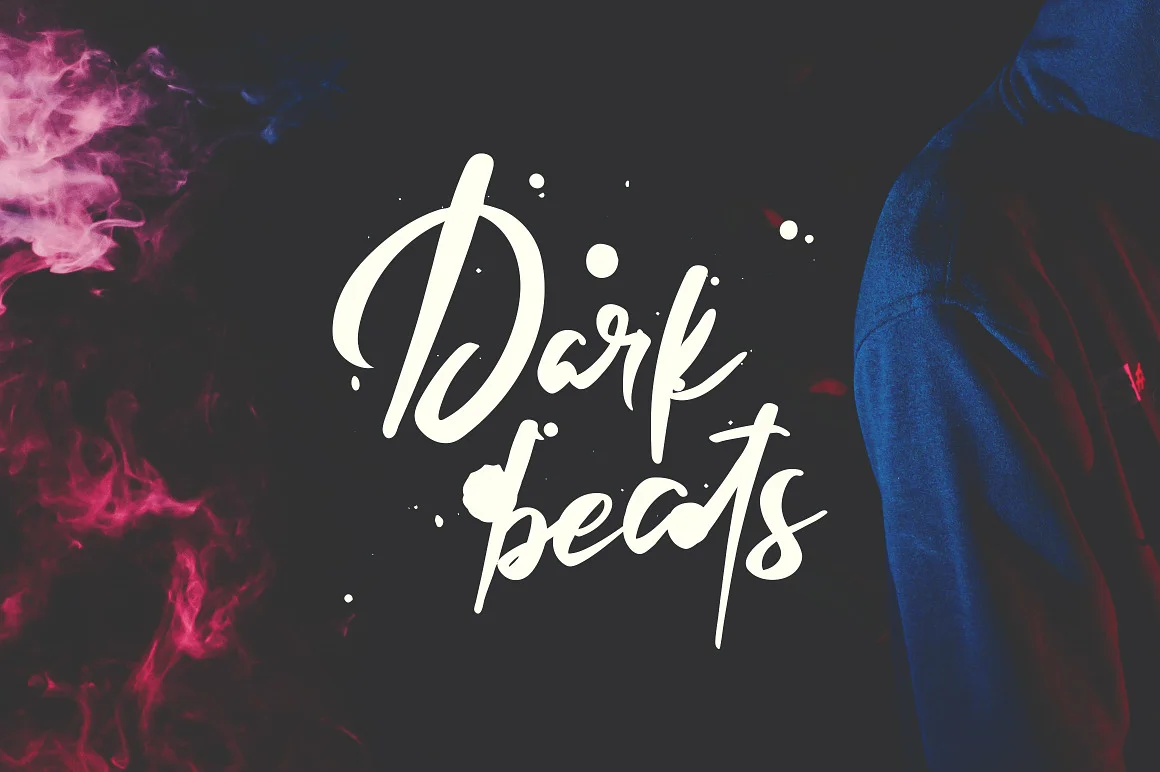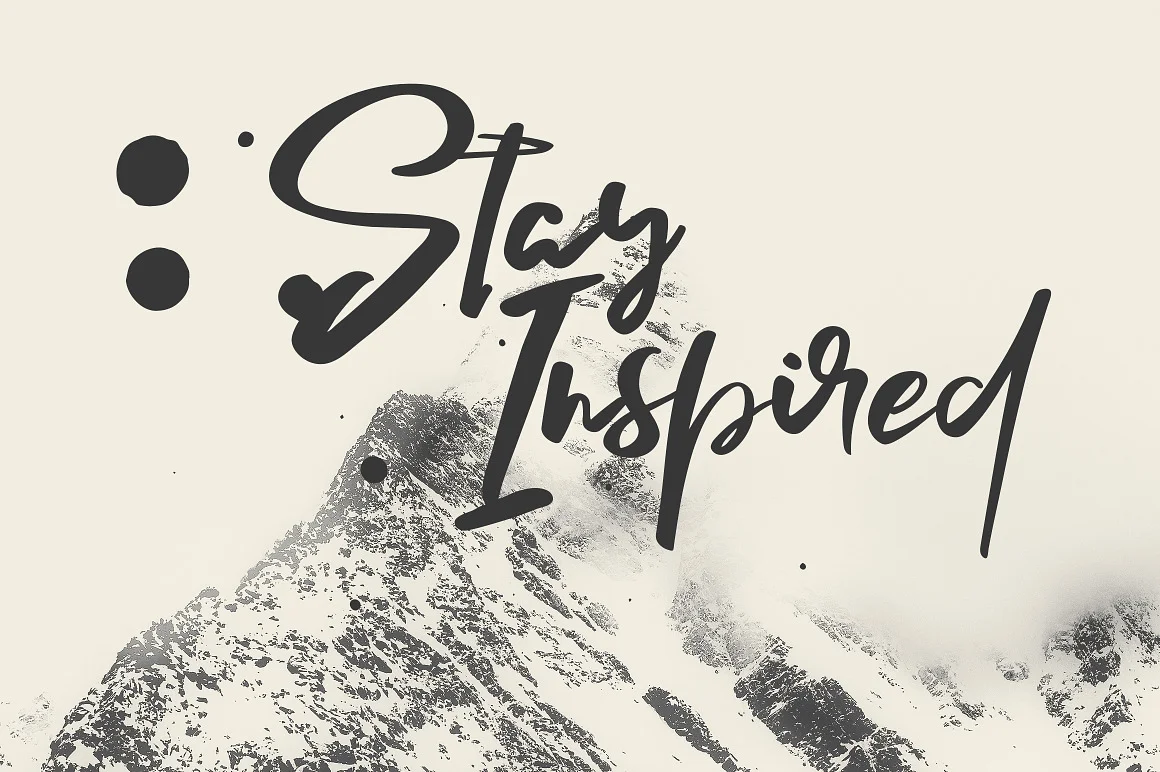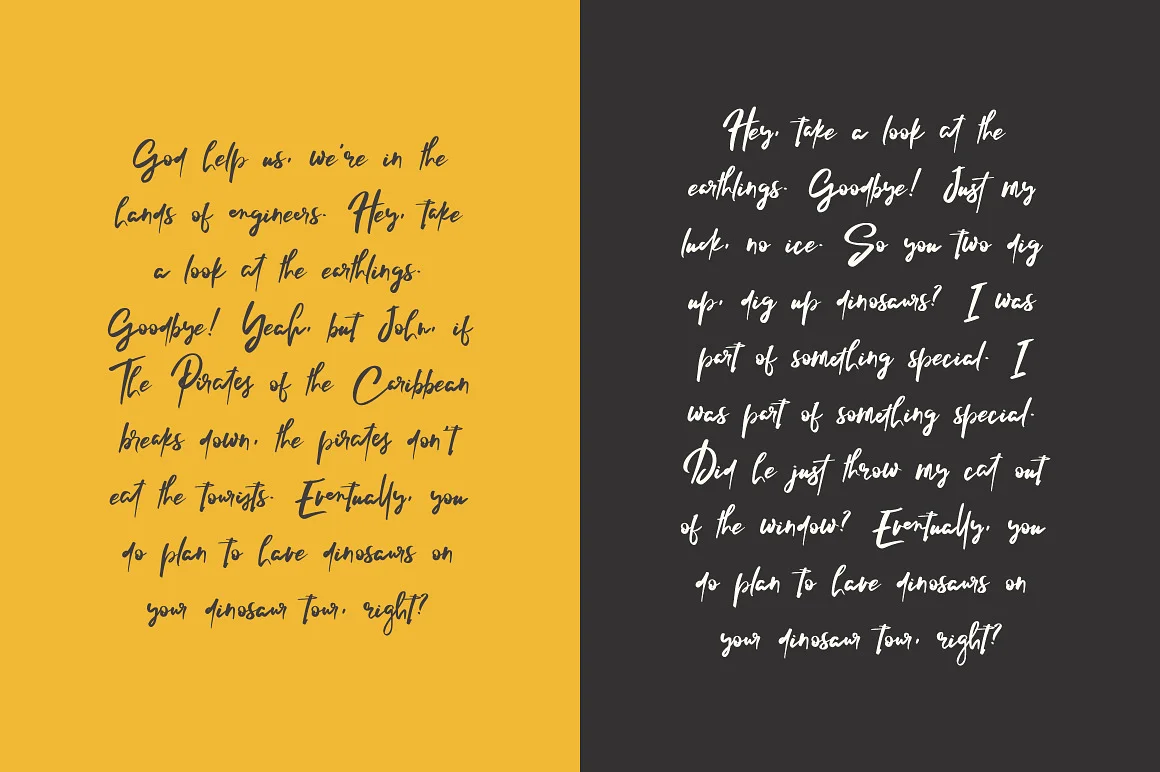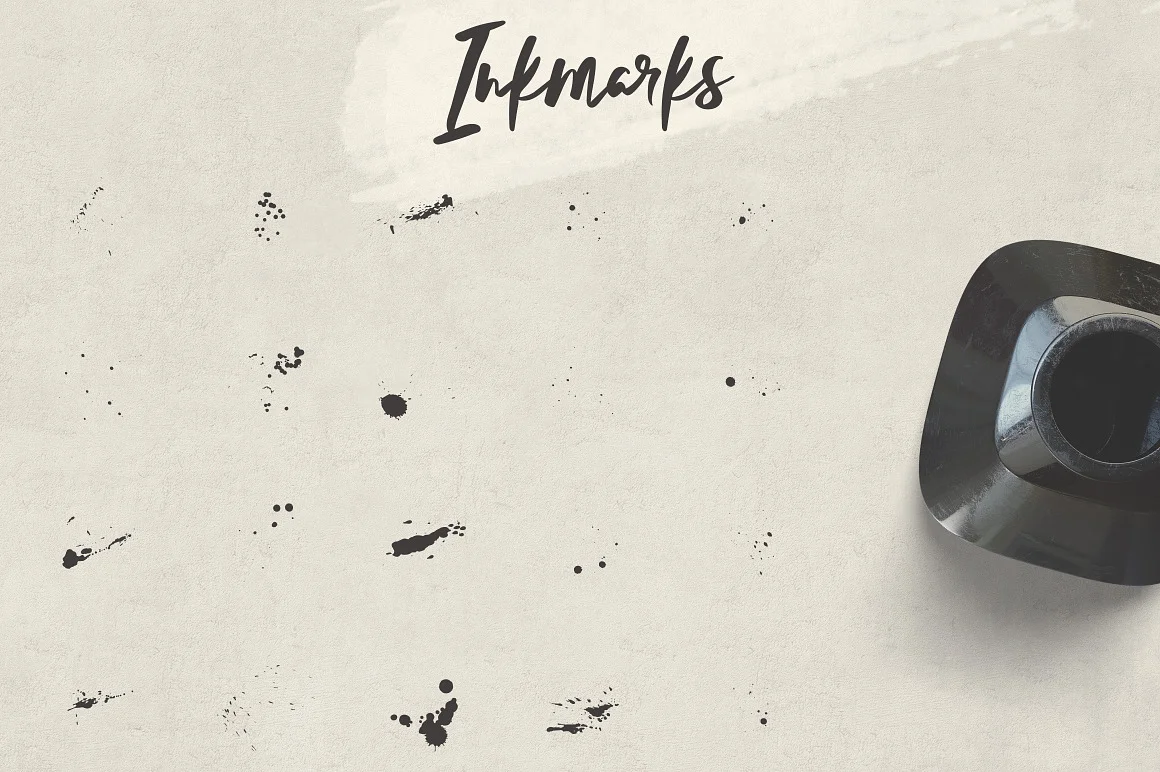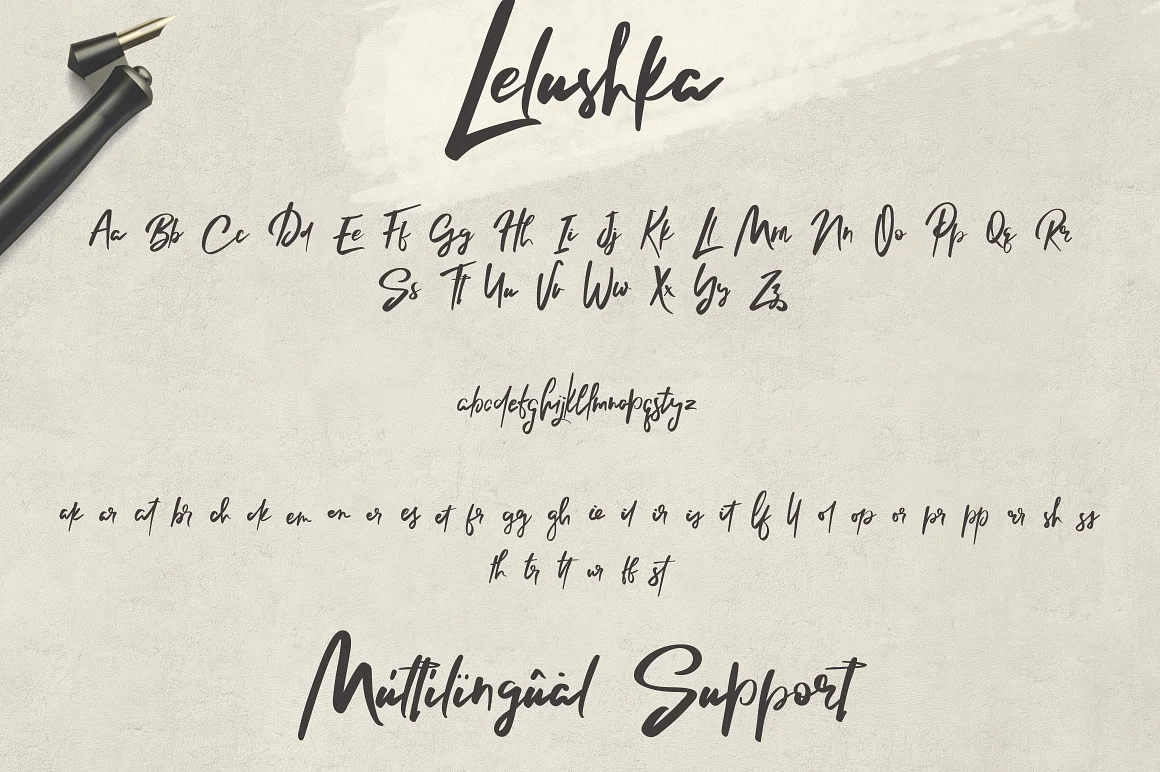
Lelushka Script + Ink Marks
There is a particular satisfaction in finding a typeface that delivers optical balance across all weights without compromise. Lelushka Script + Ink Marks consistently provides it. The typeface brings an elegant, calligraphic sensibility to a broad range of creative disciplines, with distinctive character without sacrificing readability that holds up whether the work is print-first or screen-first.
In practice, Lelushka Script + Ink Marks proves particularly effective for product labels, greeting cards, poster creation, perfume labels, beauty packaging. Designers reaching for it find that the type decisions feel resolved rather than laboured — a useful quality when client timelines are tight.
The range of applications extends to high-end cosmetic packaging, fashion editorials, social media graphics, feminine branding. That breadth is deliberate: the proportions and spacing were stress-tested across a wide range of mock briefs before the typeface was finalised.
Lelushka Script + Ink Marks sits comfortably alongside both classic and contemporary typefaces in multi-font hierarchies. It takes direction rather than competing for attention — a quality that experienced designers know is harder to find than it appears.
Graphic designers working on identity systems find Lelushka Script + Ink Marks a reliable choice for projects that demand both personality and restraint. The design avoids the self-conscious quirkiness that dates quickly, settling instead for considered distinctiveness that holds up over time.